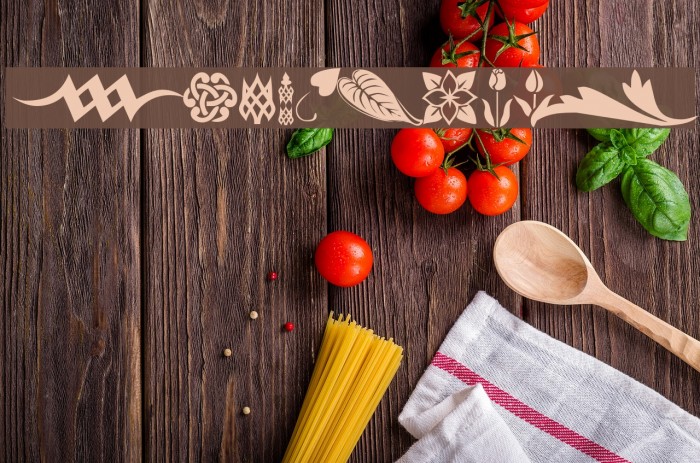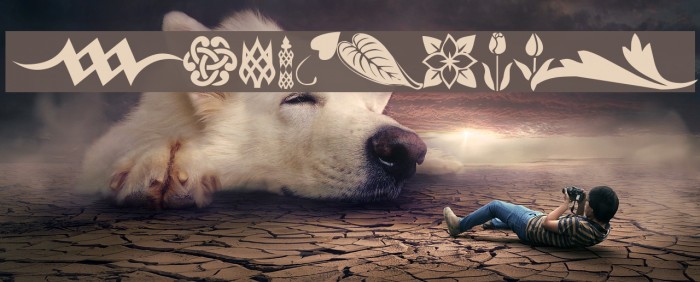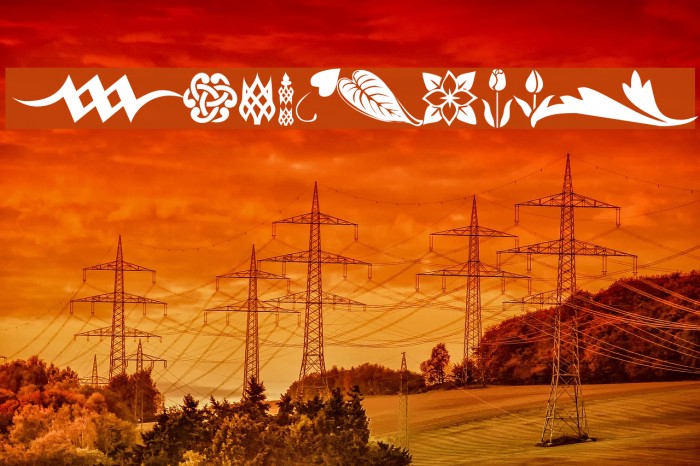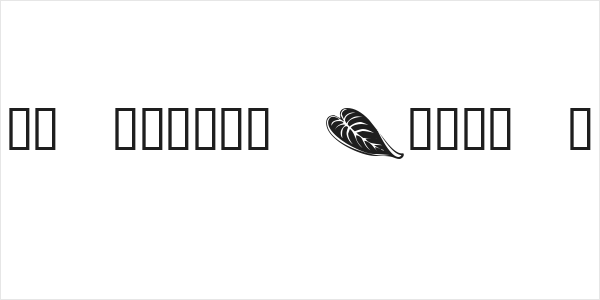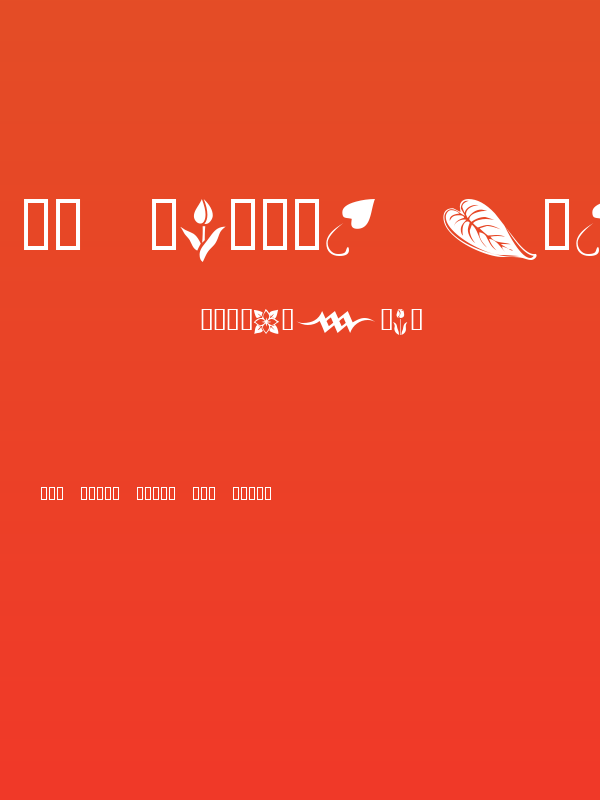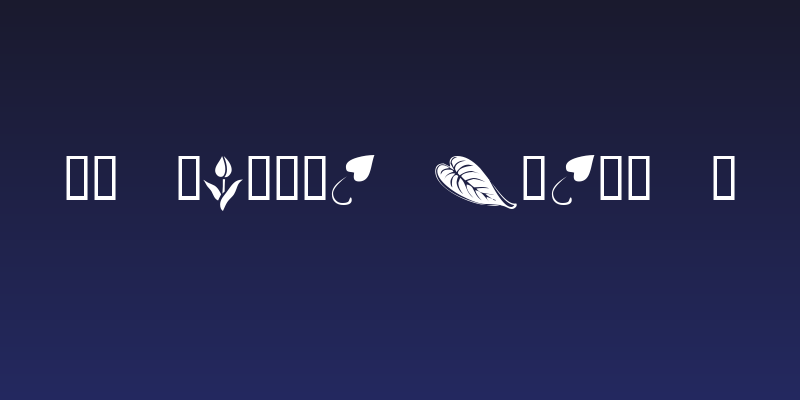
KR Simple Fleur 3 Font
KR Simple Fleur 3 Description
This design is a decorative collection of floral and ornamental motifs rather than a traditional font. It features intricate patterns including flowers, leaves, and abstract shapes, each crafted with detailed line work and bold contrasts. The elements are arranged in a way that suggests a border or embellishment rather than individual characters. These motifs are ideal for adding a decorative touch to various design projects, offering a sense of elegance and artistry.
Use CaseArtistic embellishments, decorative borders.
Proposed ProjectsIdeal for decorative borders, invitations, greeting cards, and artistic embellishments.